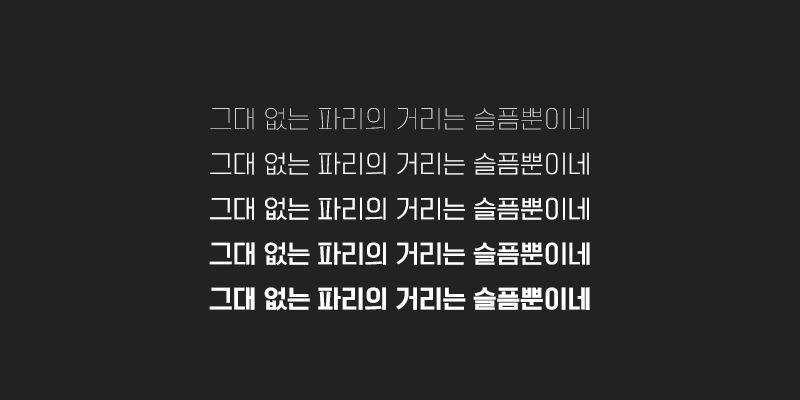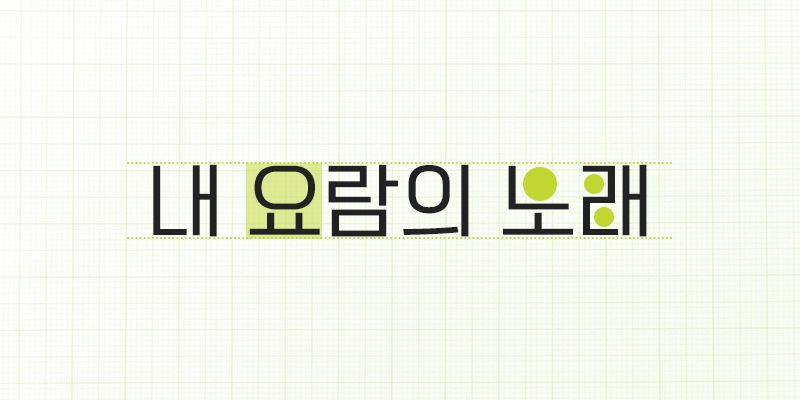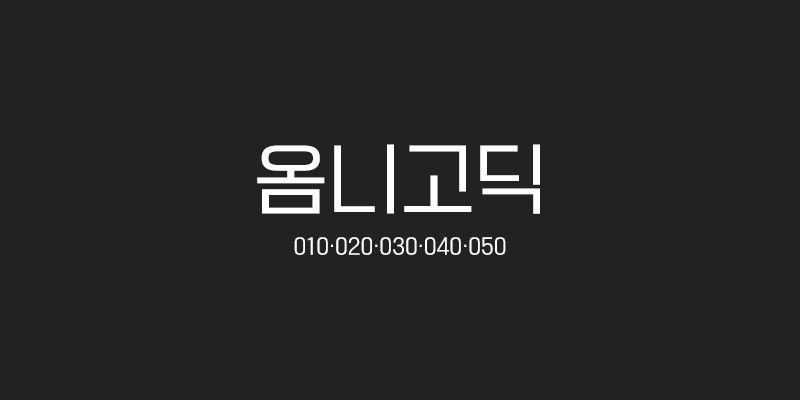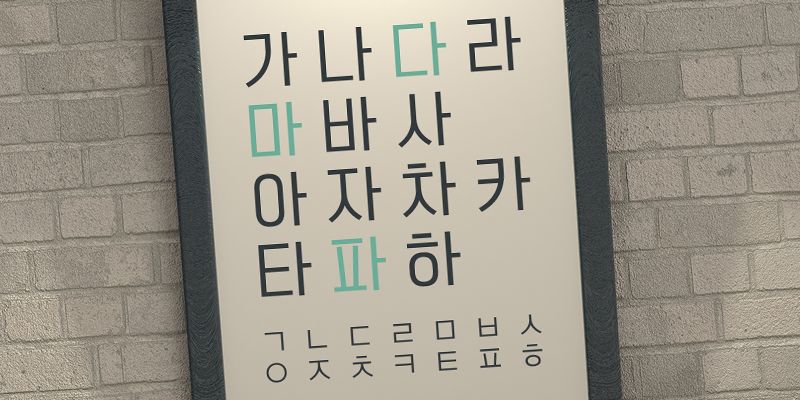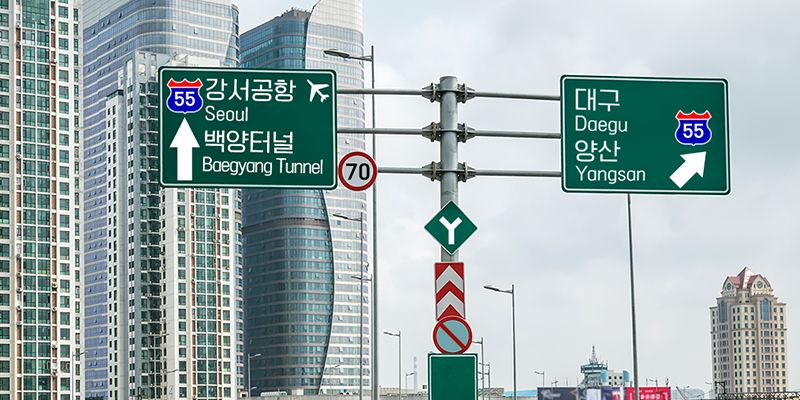
210 OmniGothic is a text font designed with an emphasis on readability, and can be used anywhere for all purposes, just like the name “omni”, meaning “all”, implies. It is a sans-serif style with elements designed in generous sizes to give it a modern yet stable impression.